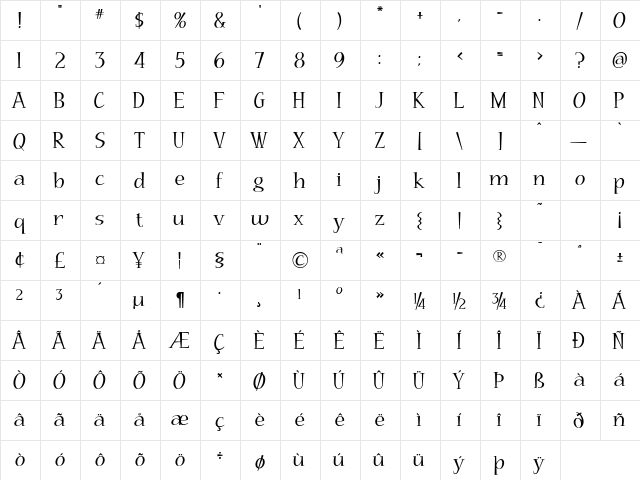
Trapeze Regular
Design Context for Trapeze Typeface
Trapeze takes a measured approach to typography — its balanced proportions and neutral character make it a reliable workhorse for both digital and print work.